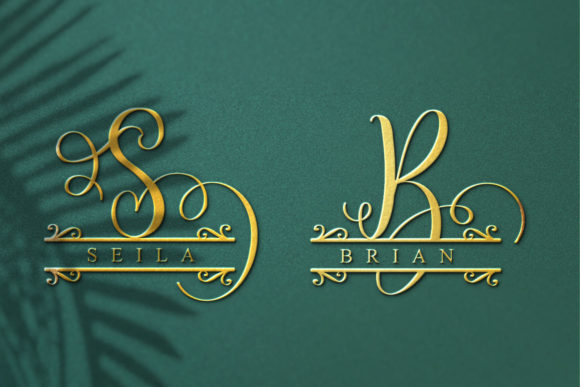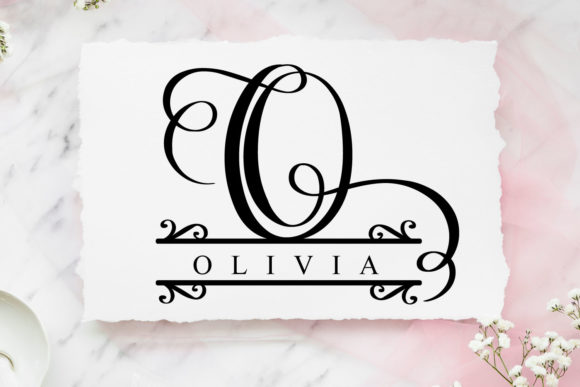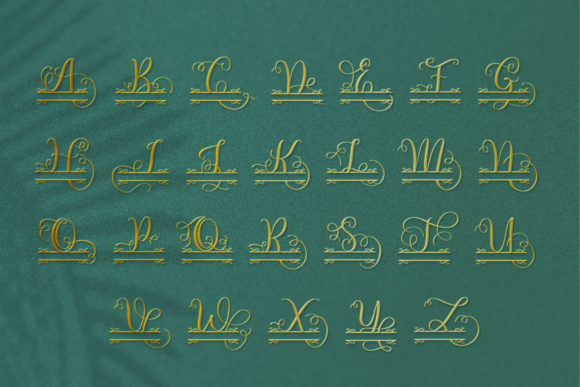
Introducing Adella Monogram Font: The Sweet Decorative Font for Your Creative Projects
Are you a designer, crafter, or DIY enthusiast looking for a font that can add a touch of elegance and sophistication to your creative projects? Look no further than Adella Monogram Font, a sweet decorative font that is sure to capture your heart. With its authentic feel and versatile design, Adella Monogram is the perfect choice for creating stunning wedding invitations, beautiful stationery art, eye-catching social media posts, and cute greeting cards.
The Charm of Adella Monogram Font
Adella Monogram Font is a decorative font that boasts a unique and charming design. Its authentic feel is reminiscent of traditional monogramming, with intricate details and elegant lines that evoke a sense of luxury and refinement. Whether you’re creating a wedding invitation, a social media post, or a greeting card, Adella Monogram Font is sure to add a touch of sophistication and glamour to your design.
Perfect for Wedding Invitations and Stationery
Wedding invitations and stationery are a great way to showcase the beauty of Adella Monogram Font. The font’s elegant design and intricate details make it perfect for creating stunning wedding invitations, save-the-date cards, and other stationery items. You can use Adella Monogram Font to create custom monograms, decorative borders, and other design elements that will make your wedding stationery truly unforgettable.
Eye-Catching Social Media Posts
Adella Monogram Font is not just limited to print design. You can also use it to create eye-catching social media posts that will grab the attention of your followers. Whether you’re a business owner, blogger, or influencer, Adella Monogram Font can help you create stunning social media graphics that will elevate your brand and engage your audience.
Cute Greeting Cards and More
Adella Monogram Font is also perfect for creating cute greeting cards, gift tags, and other DIY projects. The font’s playful design and charming details make it ideal for creating personalized gifts and cards for special occasions. You can use Adella Monogram Font to create custom monograms, decorative borders, and other design elements that will make your greeting cards and gift tags truly special.
Why Choose Adella Monogram Font?
So why choose Adella Monogram Font for your creative projects? Here are just a few reasons why this font stands out:
- Unique and charming design: Adella Monogram Font boasts a unique and charming design that is sure to capture your heart.
- Authentic feel: The font’s authentic feel is reminiscent of traditional monogramming, with intricate details and elegant lines.
- Versatile: Adella Monogram Font is versatile and can be used for a wide range of creative projects, from wedding invitations to social media posts.
- Elegant and sophisticated: The font’s elegant design and intricate details make it perfect for creating stunning wedding invitations, stationery art, and other design elements.
Tips for Using Adella Monogram Font
Here are a few tips for using Adella Monogram Font in your creative projects:
- Use it sparingly: Adella Monogram Font is a decorative font, so use it sparingly to add a touch of elegance and sophistication to your design.
- Pair it with other fonts: Adella Monogram Font pairs well with other fonts, so feel free to experiment with different font combinations to create a unique look.
- Experiment with colors: Adella Monogram Font looks great in a variety of colors, so don’t be afraid to experiment with different colors and textures to add depth and interest to your design.
Adella Monogram Font is a sweet decorative font that is sure to capture your heart. With its authentic feel and versatile design, it’s the perfect choice for creating stunning wedding invitations, beautiful stationery art, eye-catching social media posts, and cute greeting cards. Whether you’re a designer, crafter, or DIY enthusiast, Adella Monogram Font is a great addition to your font collection.